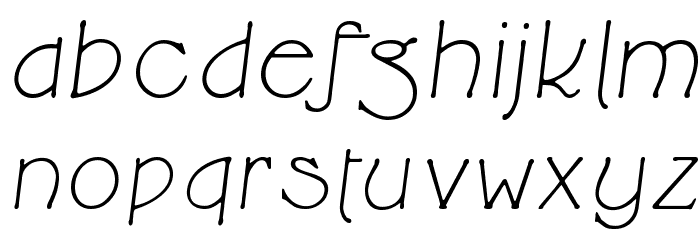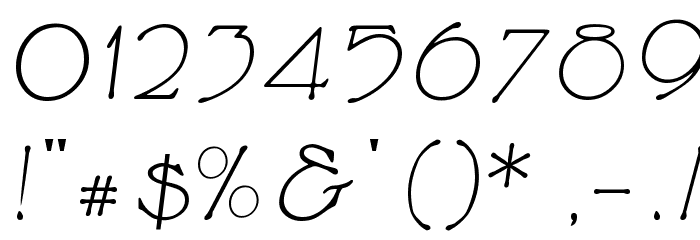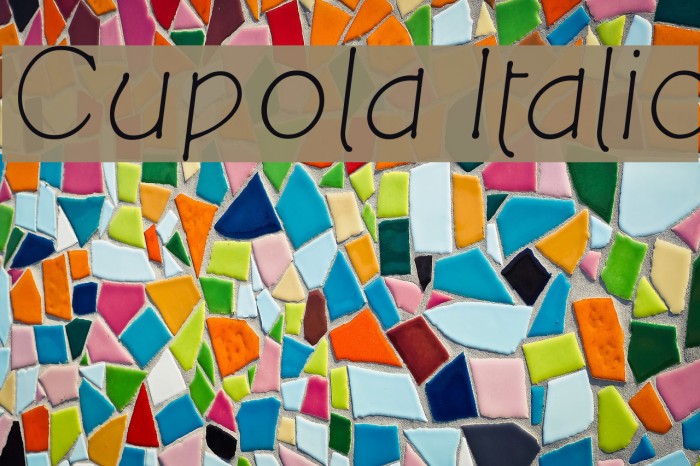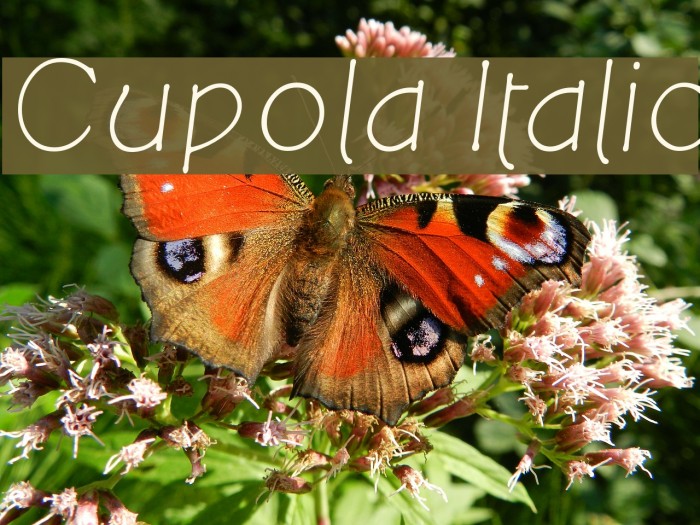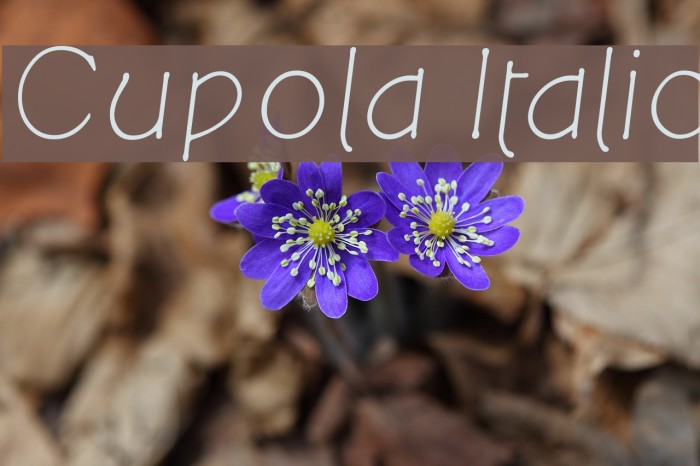
Cupola Italic Font
This font features a unique blend of elegance and playfulness, characterized by its italicized, flowing script style. The letters are slightly slanted, giving a sense of motion and fluidity. Each character is distinct, with a combination of sharp and rounded edges that create a dynamic visual appeal. The uppercase letters are tall and slender, while the lowercase letters maintain a consistent height, contributing to a harmonious appearance. The numerals are clear and easy to read, complementing the overall style. Special characters are thoughtfully designed to match the font's aesthetic, making it versatile for various uses.
An elegant, italic script font with a playful and fluid design.
- Overall Style: Elegant, Playful